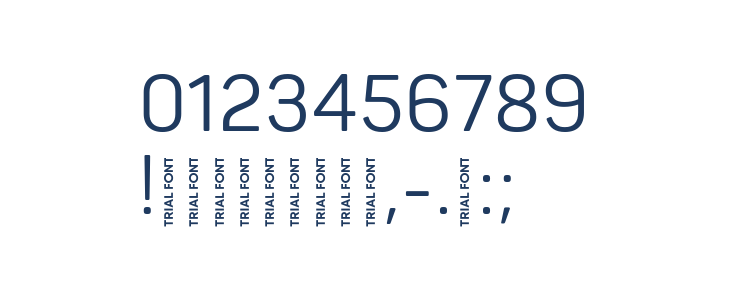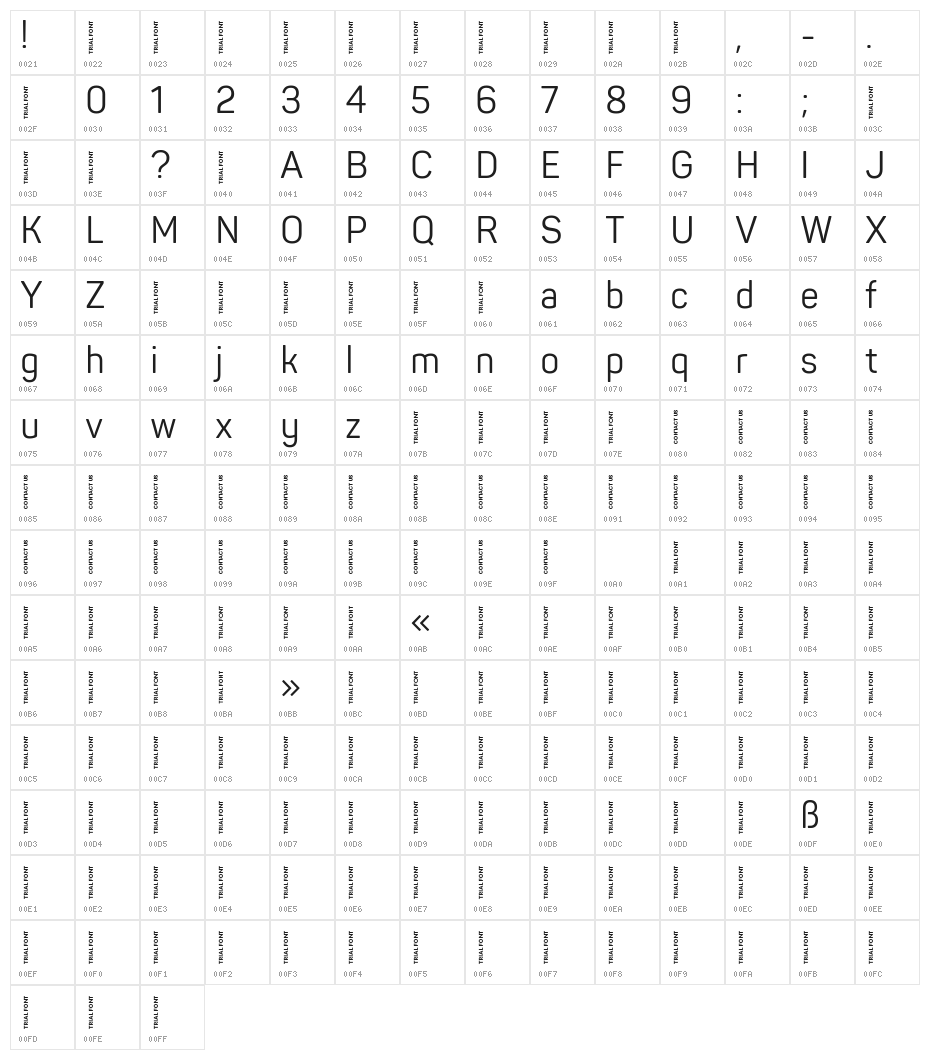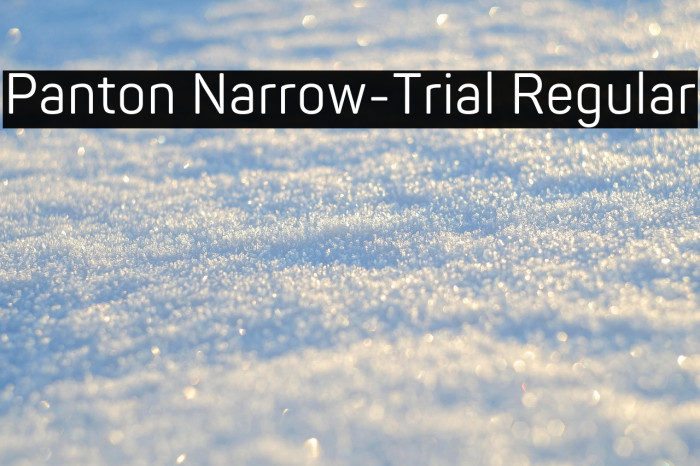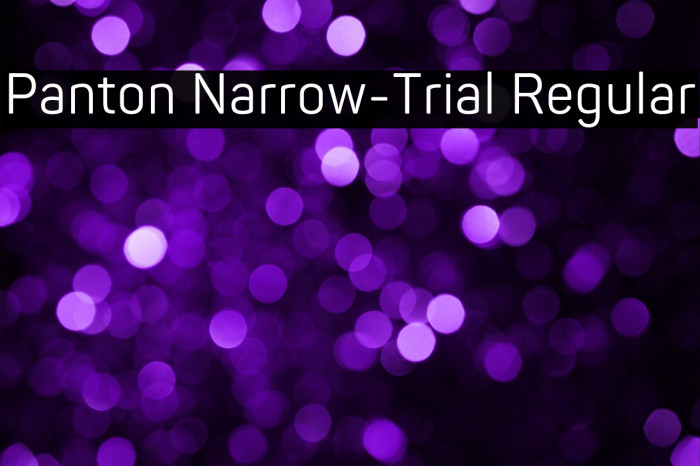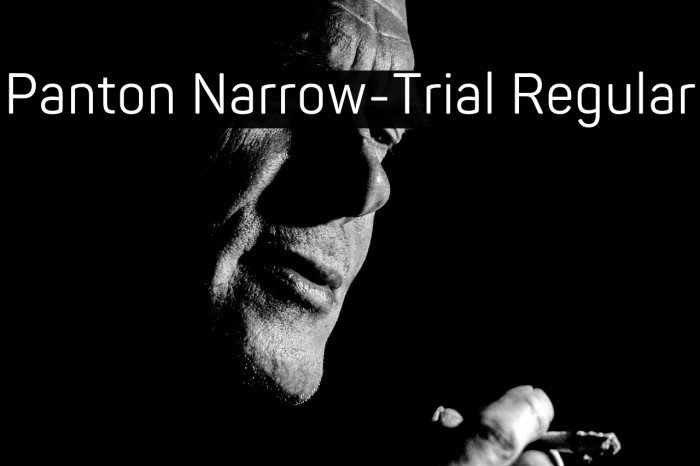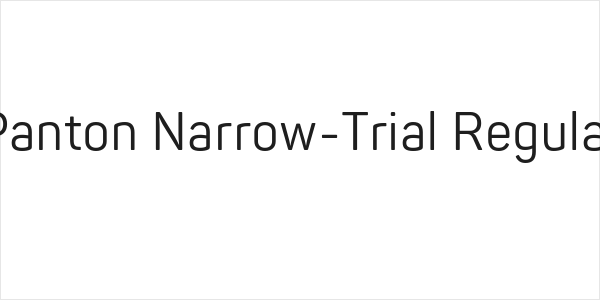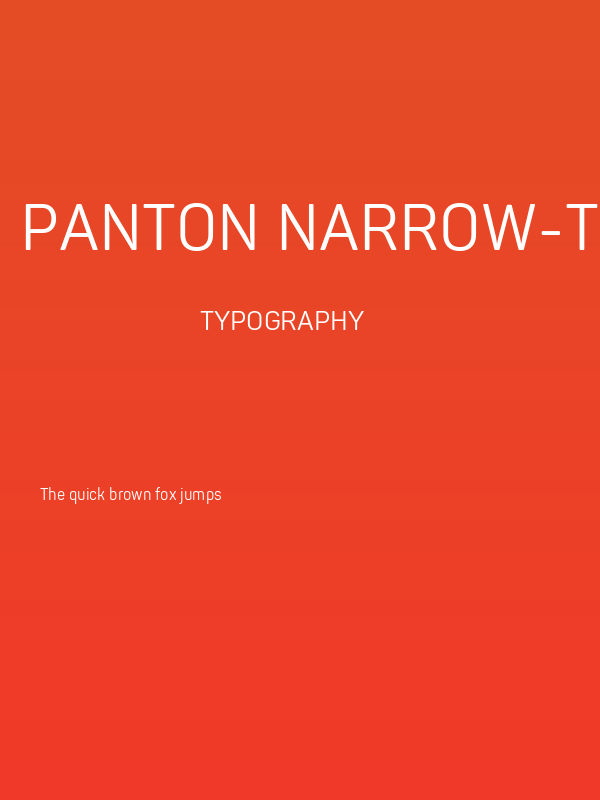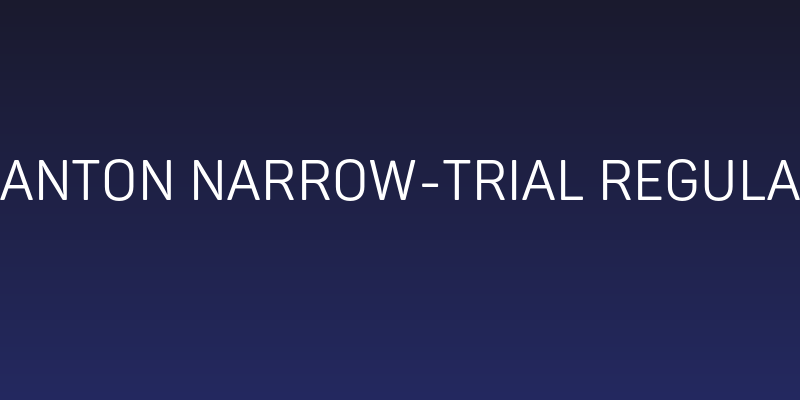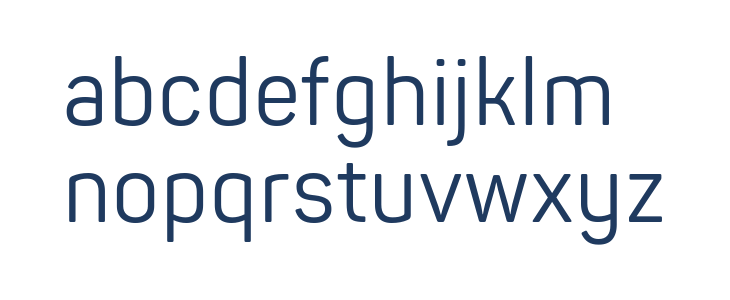
Panton Narrow-Trial Regular Font
Panton Narrow-Trial Regular Description
This font presents a clean and modern aesthetic with a narrow structure, making it ideal for space-saving designs. The characters are uniformly designed with a consistent stroke width, contributing to a sleek and professional appearance. The uppercase and lowercase letters are well-proportioned, and the numerals are clear and legible. The special characters are distinct and maintain the overall style of the font. Its simplicity and clarity make it versatile for various applications.
| Proposed Projects | Ideal for branding, web design, editorial layouts, and corporate materials where space is limited. |